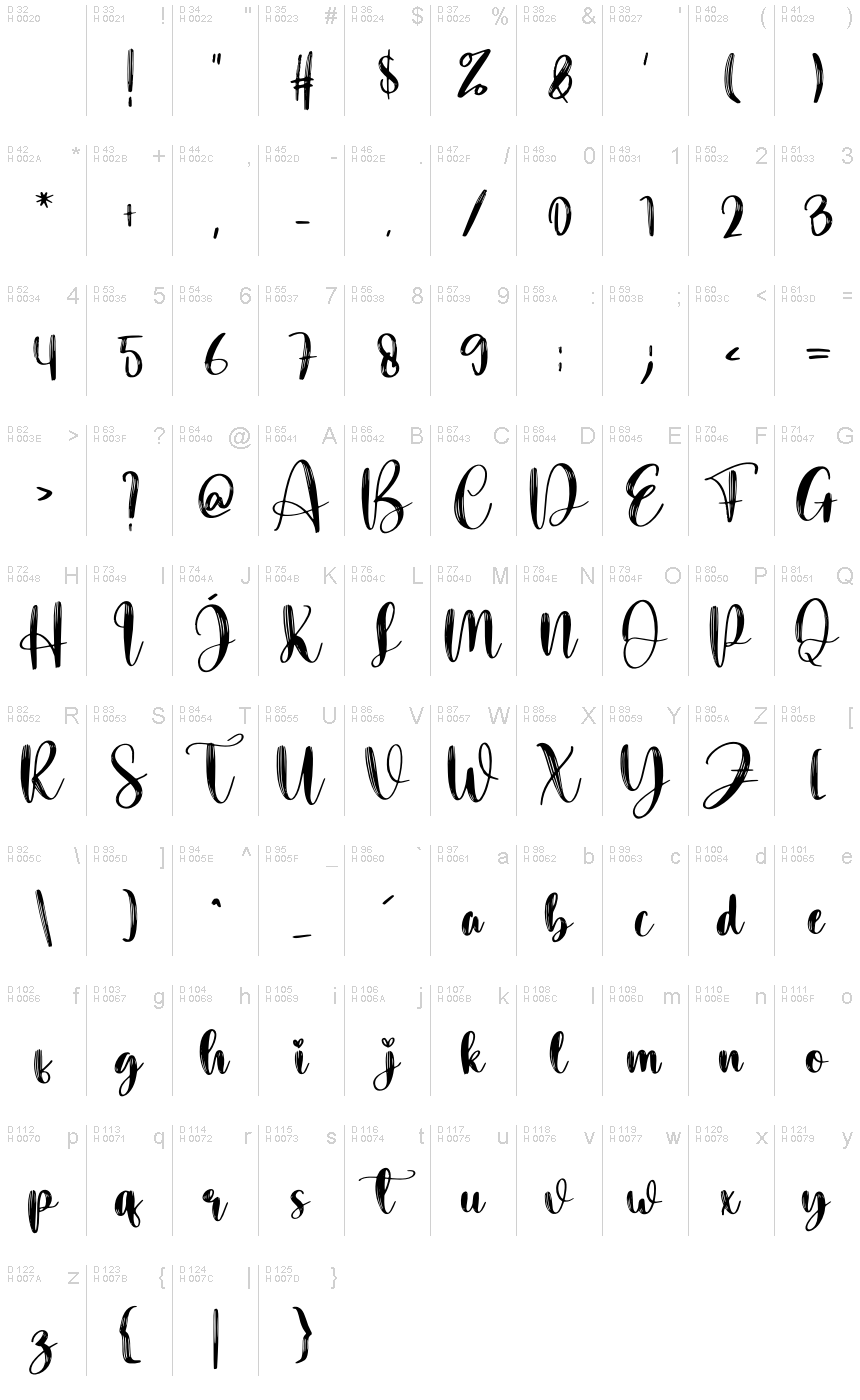
Shimmy
Shimmy, a captivating brush font designed by Scratchones, exudes a sense of effortless elegance and expressive flair. Its flowing, organic strokes and gentle curves create a mesmerizing, handwritten aesthetic that evokes a warm, personal touch. The font's distinct personality and dynamic movement seamlessly blend the boundaries between traditional calligraphy and modern typography, making it a standout choice for projects seeking a touch of artistry and character.
The versatile nature of Shimmy allows it to flourish in a wide range of applications, from invitations and event branding to editorial layouts and product packaging. Its adaptability and visual appeal make it a compelling option for designers seeking to inject a dose of refined, hand-crafted charm into their creative endeavors.